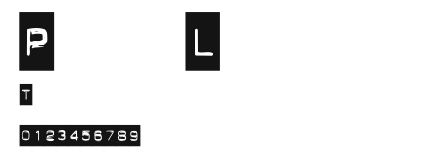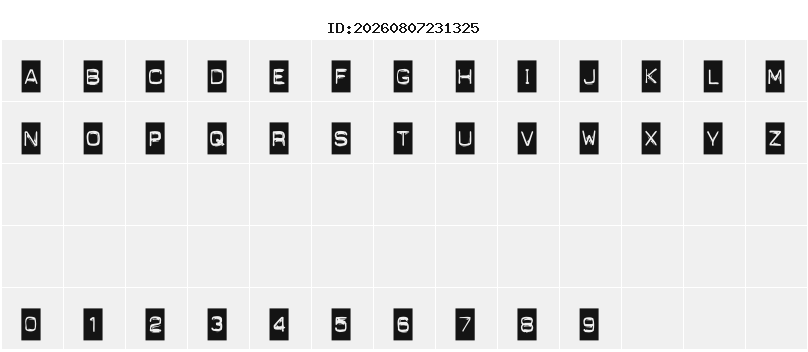
• Font Name: Punch Label
About Punch Label.ttf
Punch Label.ttf is a modern, elegant sans-serif font designed for ultimate readability and visual harmony. Perfect for branding, headlines, web design, and print materials.